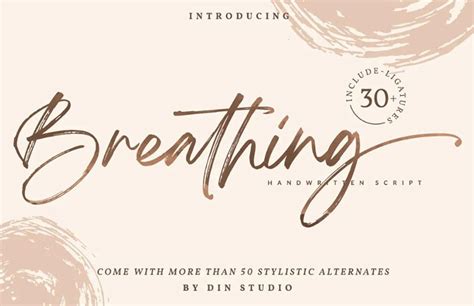
Breathing Font Free. Web breathing is a beautiful brush signature font. Made for any professional project branding.
Every letter has a unique and beautiful. Web breathing is a beautiful brush signature font. Made for any professional project branding.
Web breathing is a beautiful brush signature font. Every letter has a unique and beautiful. Web breathing is a beautiful brush signature font. Made for any professional project branding.